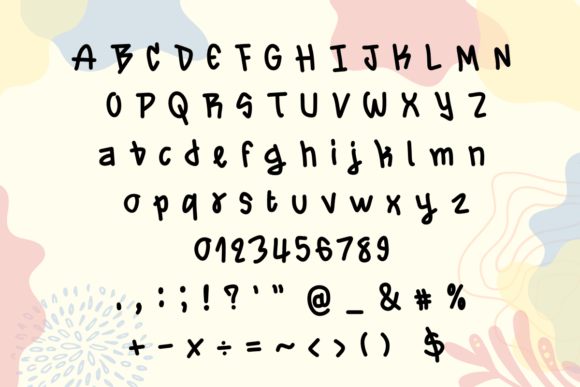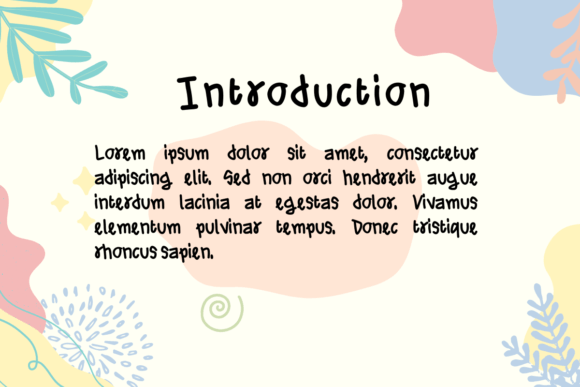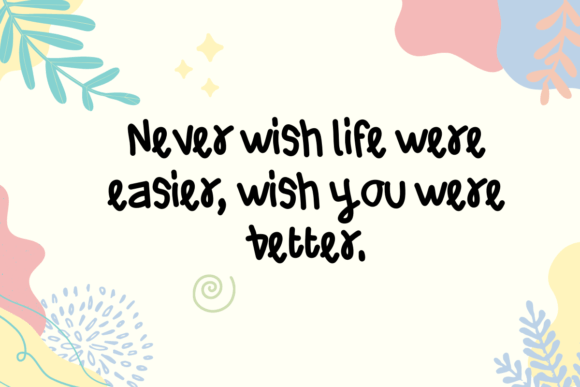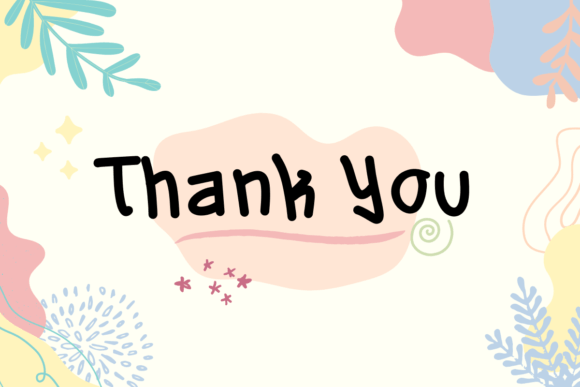
Unlock the Whimsy of Handwritten Notes with Blackboard Font
Who hasn’t scribbled down a to-do list or doodled in the margins of their favorite book? Those carefree moments of creativity are what inspire us to bring a little more personality to our designs. And that’s exactly what the Blackboard Font does – it brings a touch of handwritten charm to any project.
This friendly, cursive font is perfect for notes, diaries, and greeting cards, but its versatility knows no bounds. From banners to social media posts, mugs to shirts, Blackboard Font can elevate any design with its unique, hand-crafted feel.
For designers, Blackboard Font is a valuable asset in their toolkit. Its ability to add a personal touch to even the most mundane projects makes it a go-to choice for those looking to create something truly special.
Blackboard Font Key Features
- Unique Characteristics: Distinctive, bold, and elegant design, reminiscent of classic chalkboard writing, ideal for educational and creative purposes
- Legibility: Highly legible in both print and digital formats, making it suitable for a wide range of applications, including signage, publishing, and web design
Blackboard Font Review
Overall, I’d say the Blackboard font is a charming, nostalgic choice for any project. ✨ Its irregular, handwritten style gives off a sense of informality and approachability.
- Unique and recognizable: The Blackboard font is instantly identifiable and can help create a distinctive brand or style.
- Expressive: Its irregularity makes it perfect for conveying a sense of personality and tone.
- Easy to read: Despite its imperfections, the font is still relatively easy to read, especially in larger sizes.
However, there are some limitations to consider. ⚠️
- Limited legibility: In smaller sizes or at a distance, the font can become difficult to read due to its irregular shape.
- Not suitable for body text: The Blackboard font is best used for headings, titles, or other short text blocks, as it can be tiring to read in large quantities.
Overall, I think the Blackboard font is a great choice for projects where you want to add a touch of personality and whimsy. Just be sure to use it judiciously and in the right context.
To get the most out of the Blackboard Font, consider the following tips:
– Use it for titles and headings to add a touch of elegance and sophistication.
– Combine it with other fonts to create a unique and visually appealing design.
– Experiment with different font sizes and colors to create contrast and emphasis.
The Blackboard Font is commonly used for:
– Educational materials, such as textbooks and worksheets.
– Formal invitations and announcements.
– Branding and marketing materials, such as logos and business cards.
Alternatives to Blackboard Font
Great Vibes is a script font that resembles handwriting. It’s ideal for adding a touch of elegance and sophistication to designs. Use it for headings, titles, or quotes to create a sense of warmth and approachability.
Compared to Blackboard Font, Great Vibes has a more refined and polished look. While Blackboard Font has a more casual, hand-drawn feel, Great Vibes is more suited for formal or high-end designs.
Crimson Text is a serif font with a classic, elegant look. It’s perfect for body text, as it’s highly legible and easy to read. Use it for articles, blog posts, or any content that requires a professional tone.
Crimson Text is a more formal alternative to Blackboard Font, which is often used for headings or titles. While Blackboard Font is more playful and casual, Crimson Text is more subdued and sophisticated.